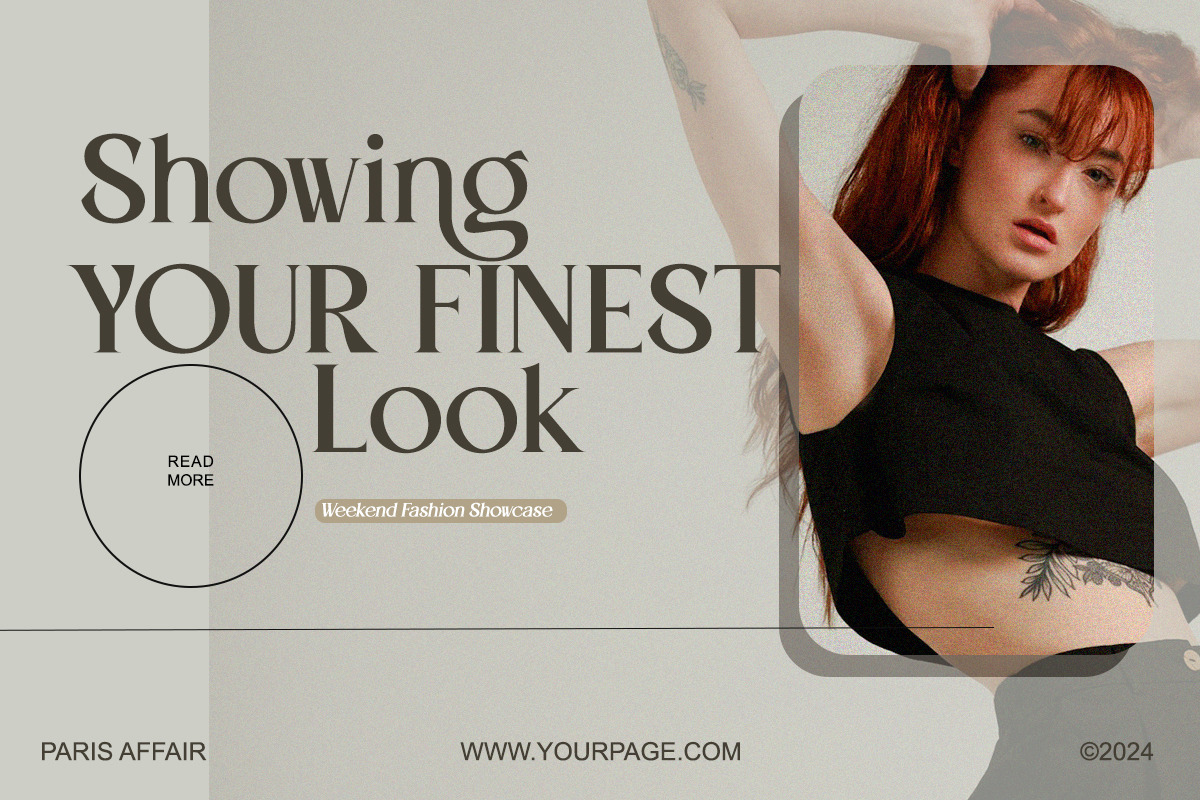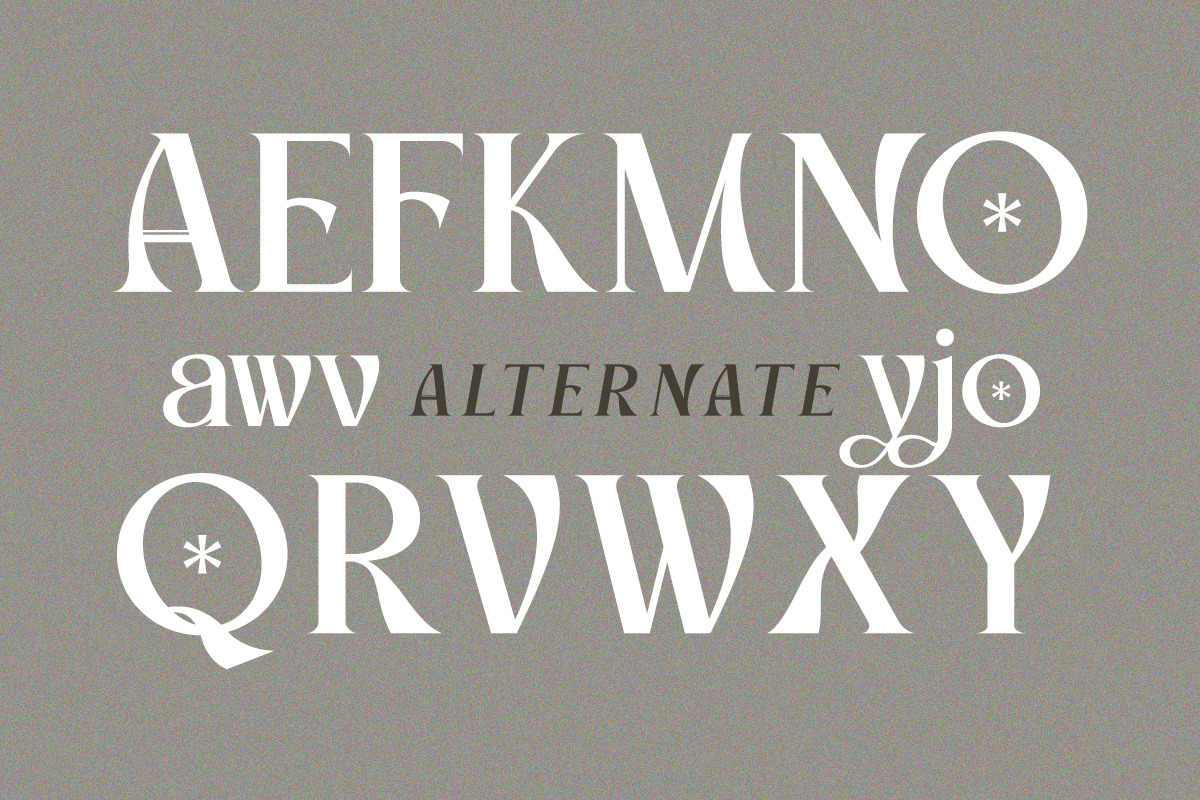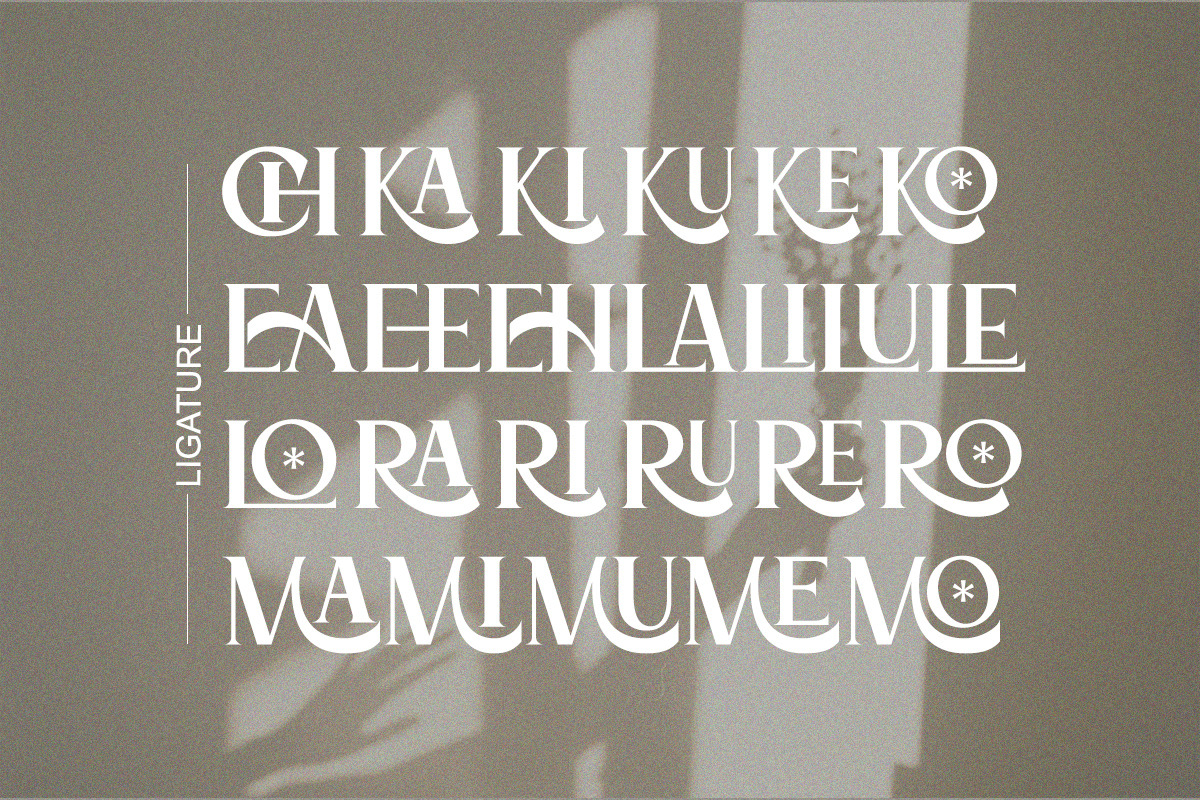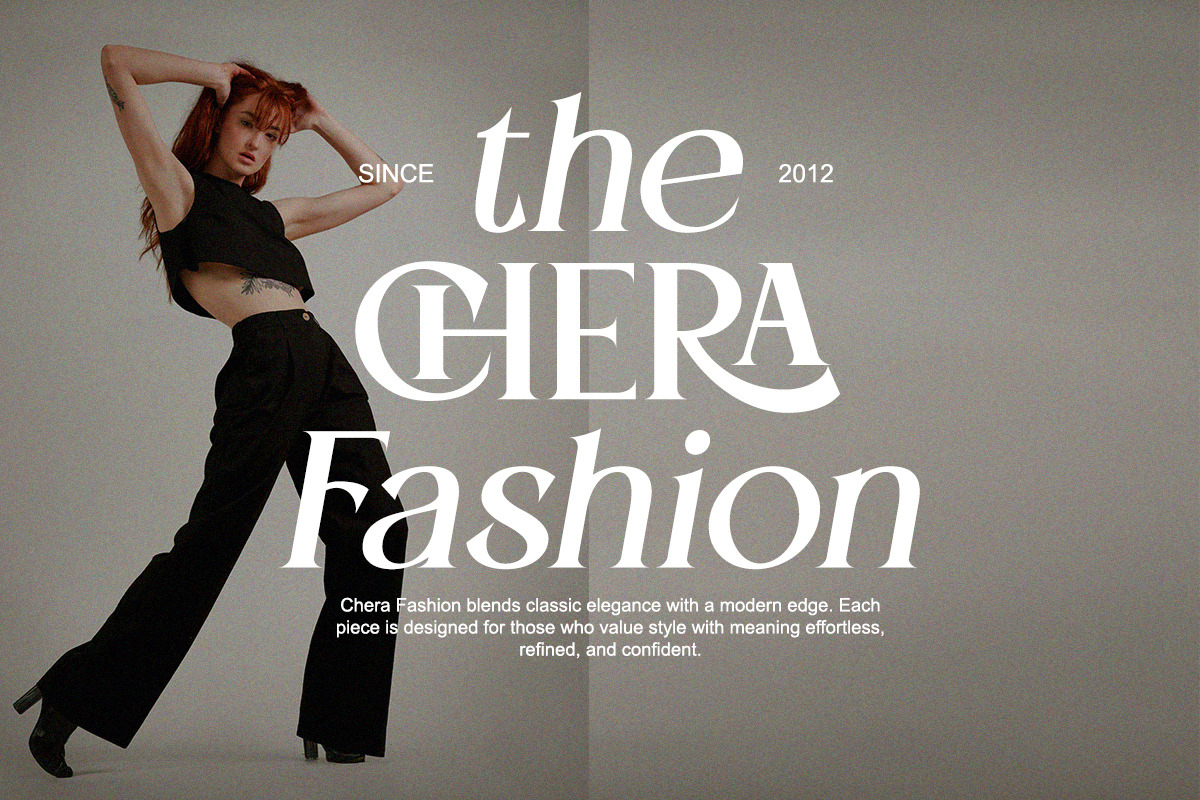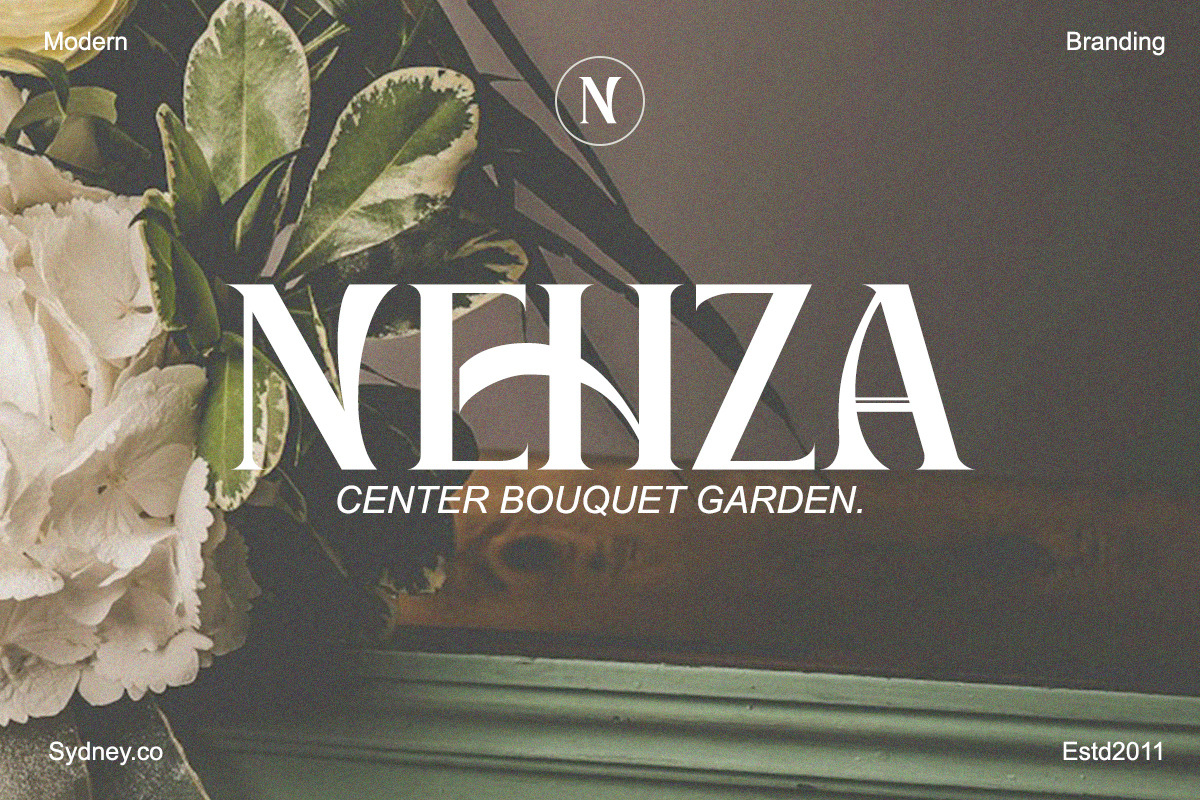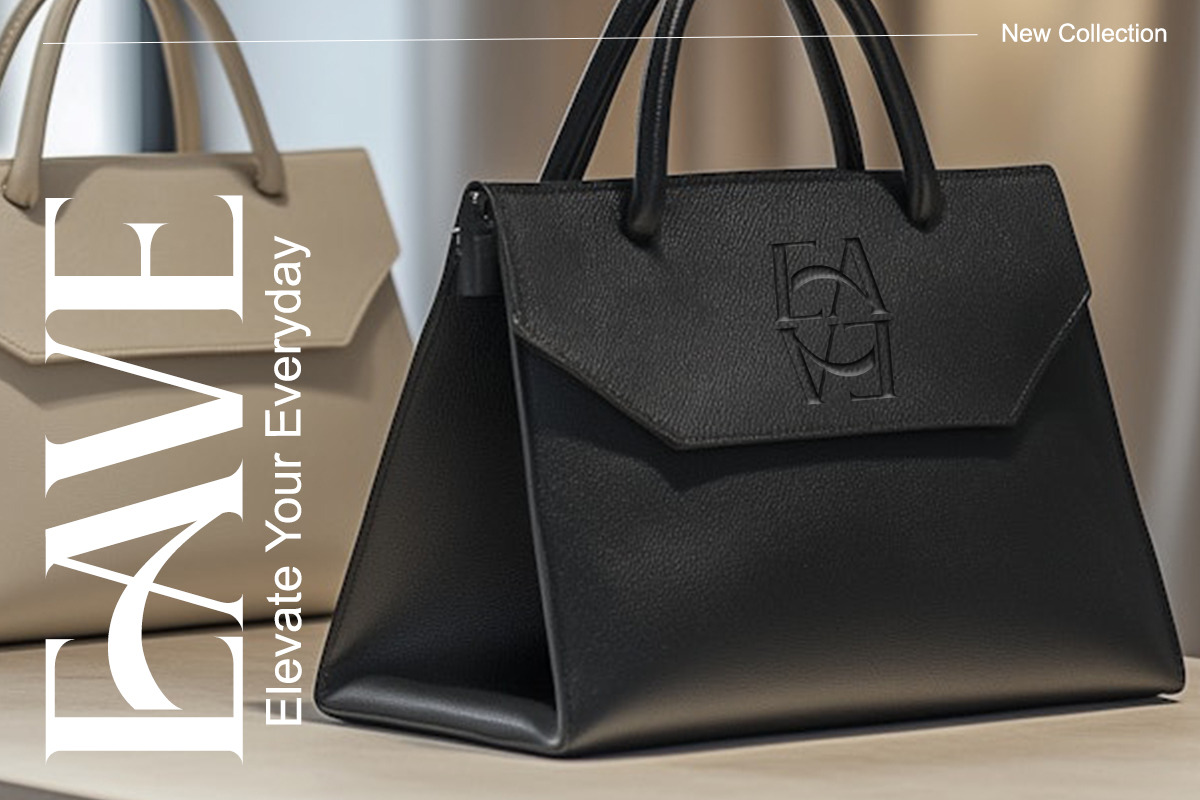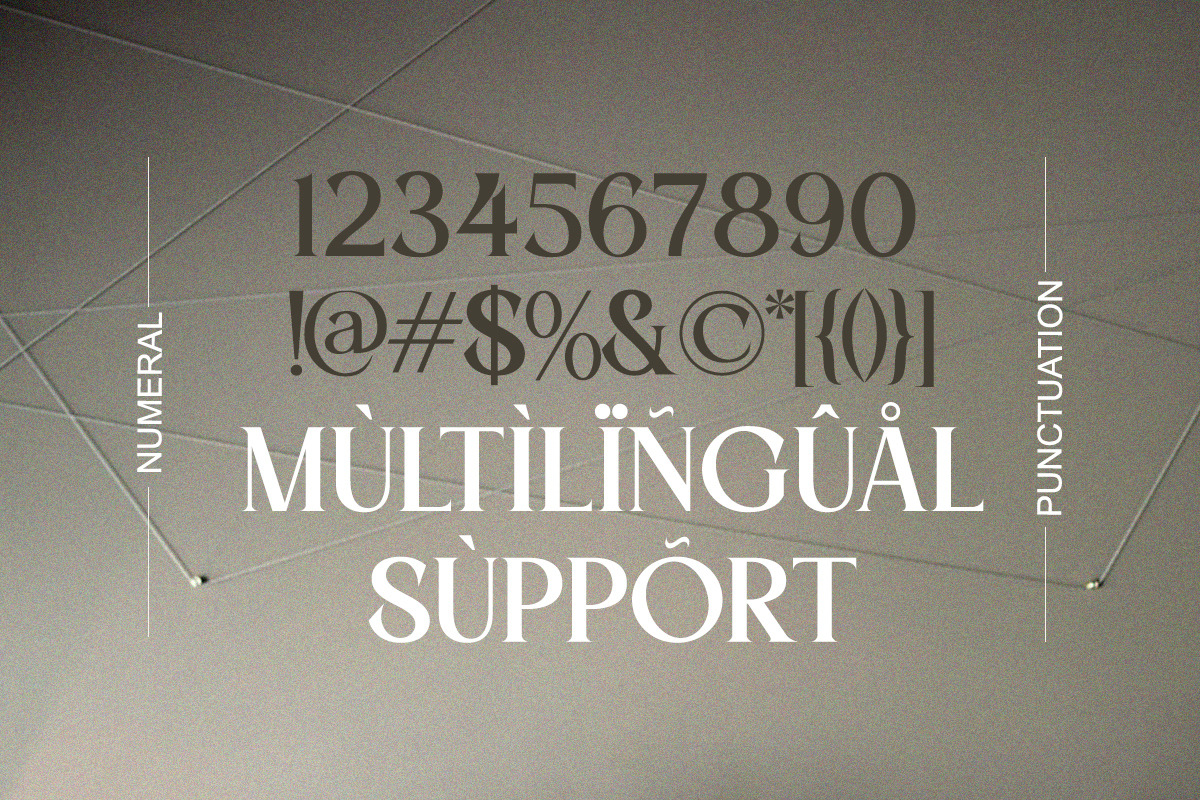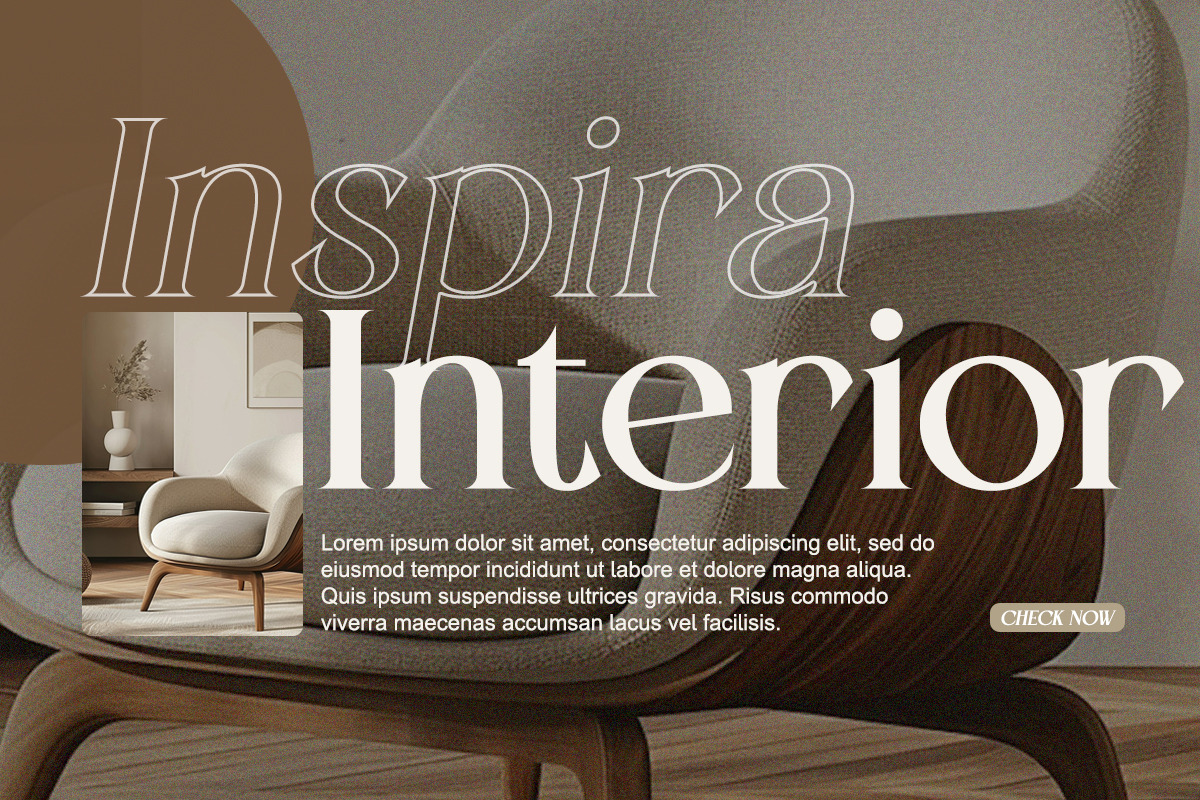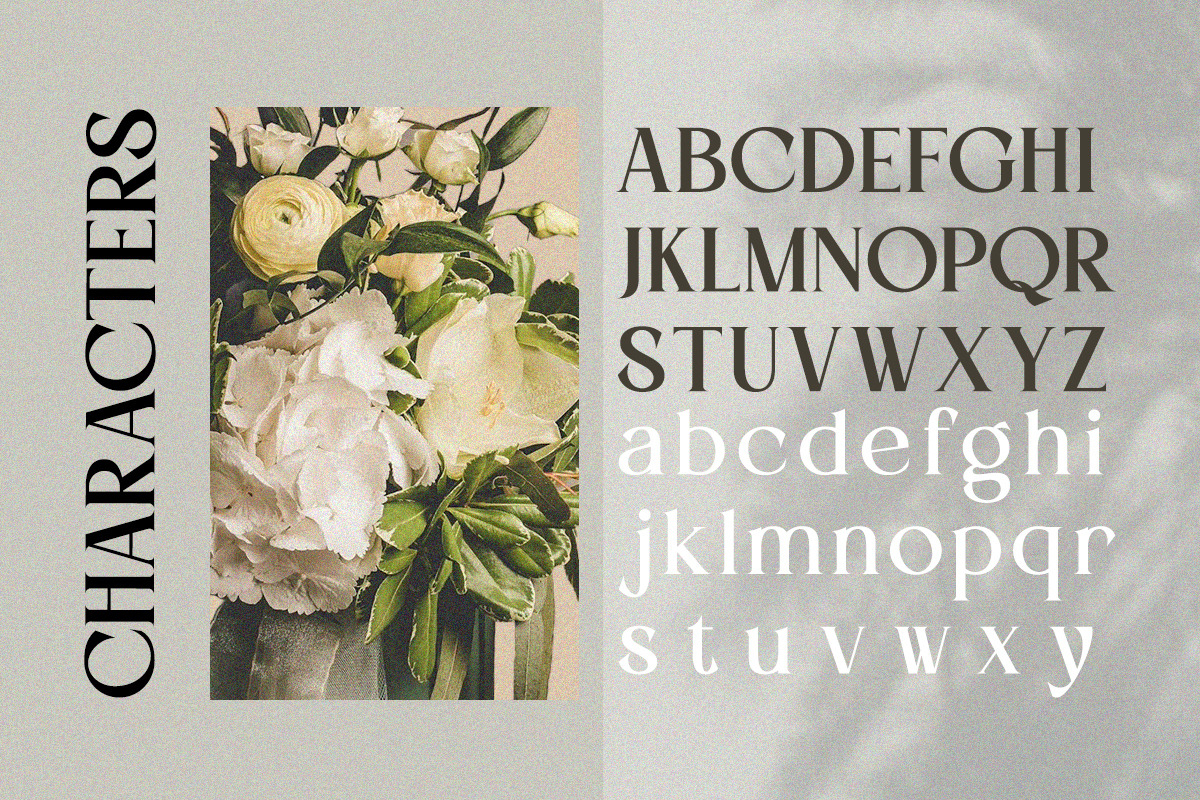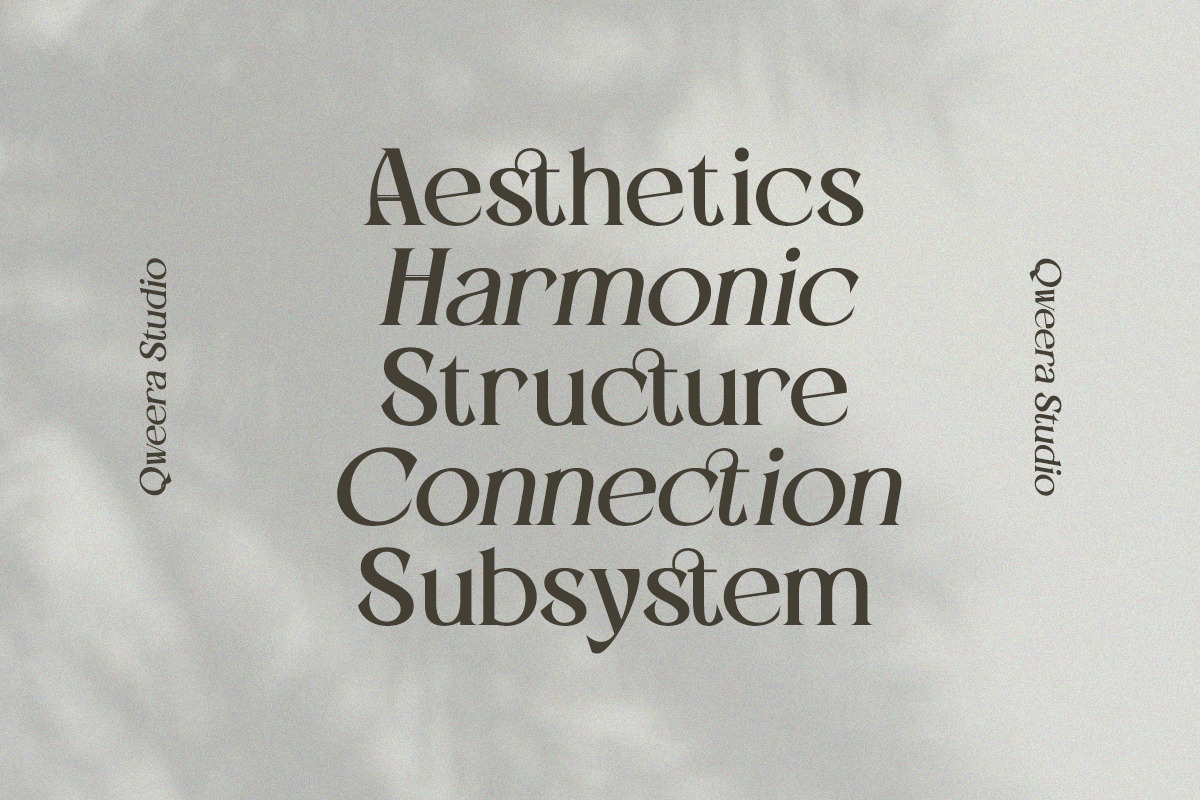
Vlatcho - Elegant Refined Serif
Introducing Vlatcho – a refined serif typeface where clean structure meets expressive beauty.
Designed with balanced curves, sharp strokes, and exclusive ligatures, Vlatcho is your ultimate font for branding elegance, high-end publishing, and bold typography statements.
Suitable for editorial design, fashion logos, product packaging, and aesthetic titles, Vlatcho brings out timeless sophistication with a bold modern twist.
Perfect for designers who crave luxury and distinctiveness in every detail.
- Regular & Italic
- Numerals & punctuation
- Custom ligatures & alternates
- Optimized kerning & multilingual support
- Editorial headlines & magazine covers
- Elegant logos & personal branding
- Product packaging & boutique labels
- Wedding invitations & classy print
- Fashion ads & lifestyle content
- Architectural & interior design themes
Vlatcho is not just a font – it’s a visual signature for premium taste.